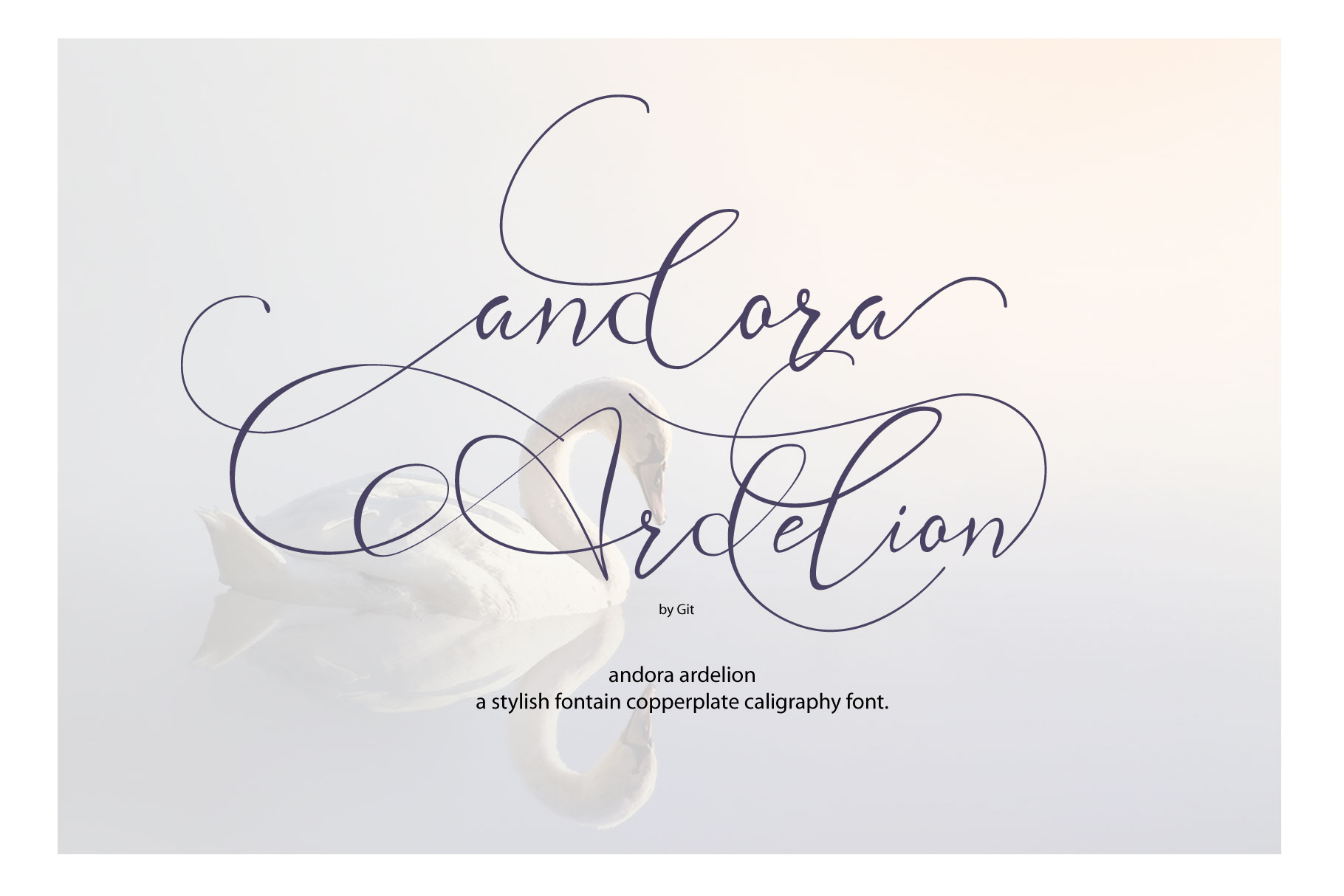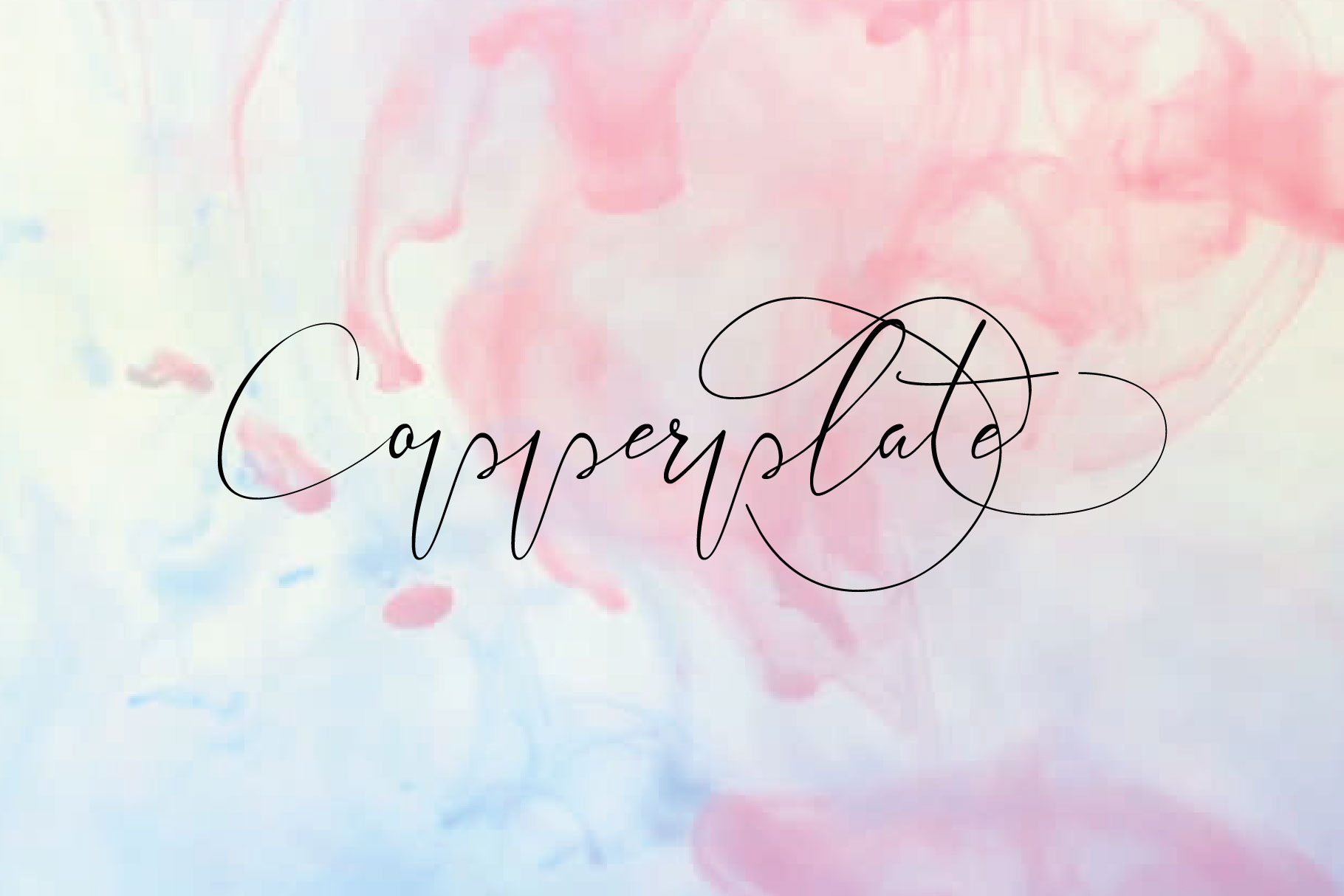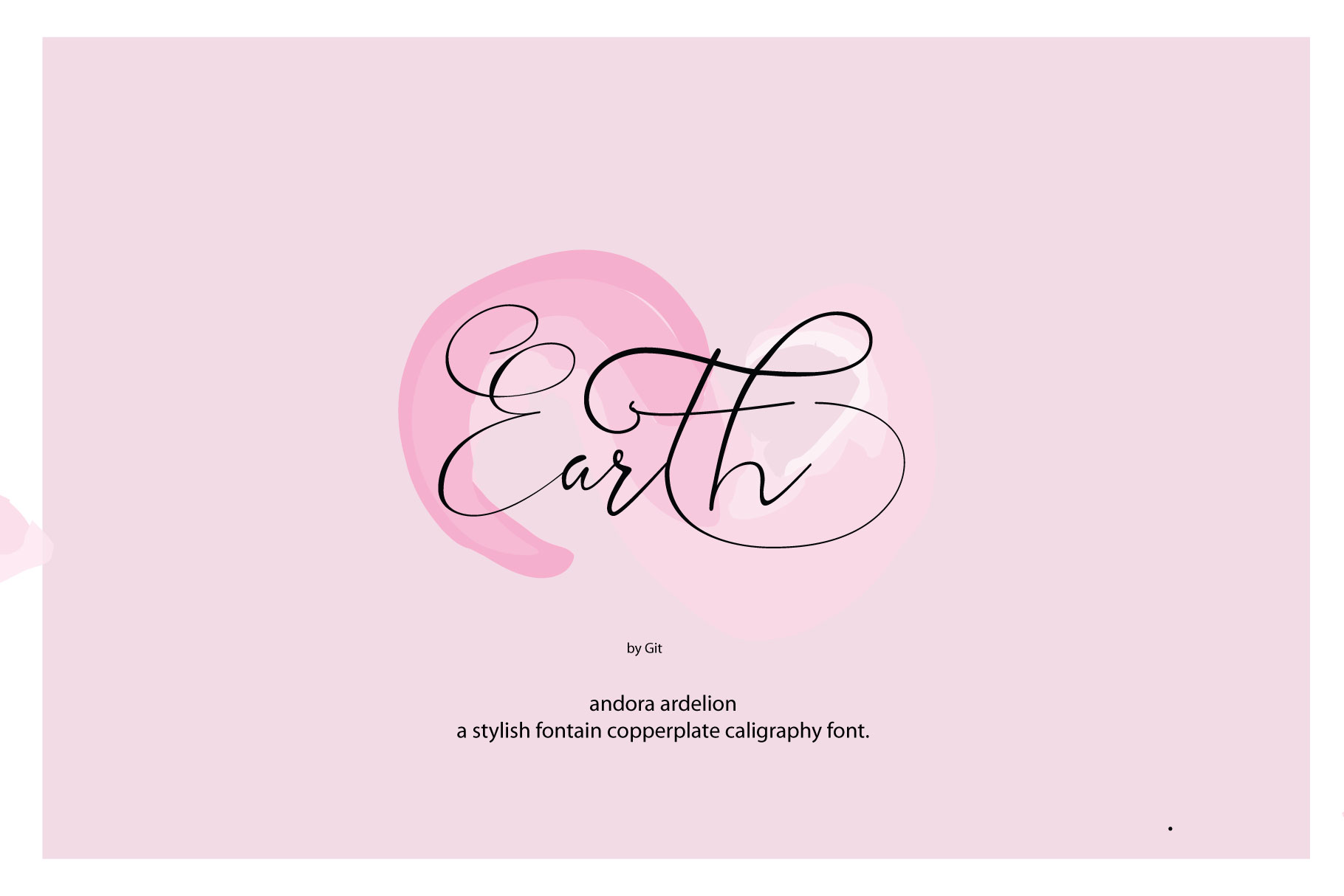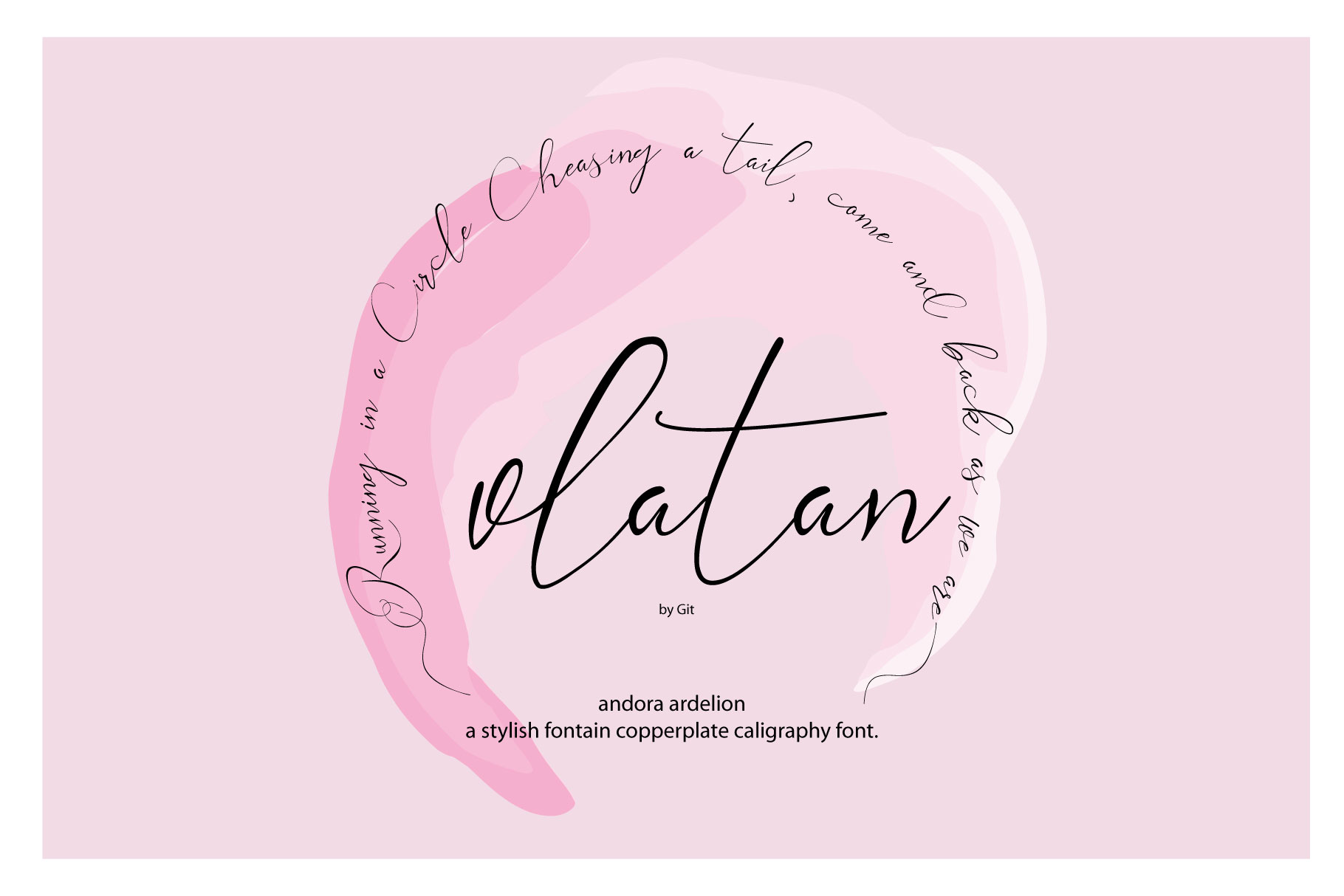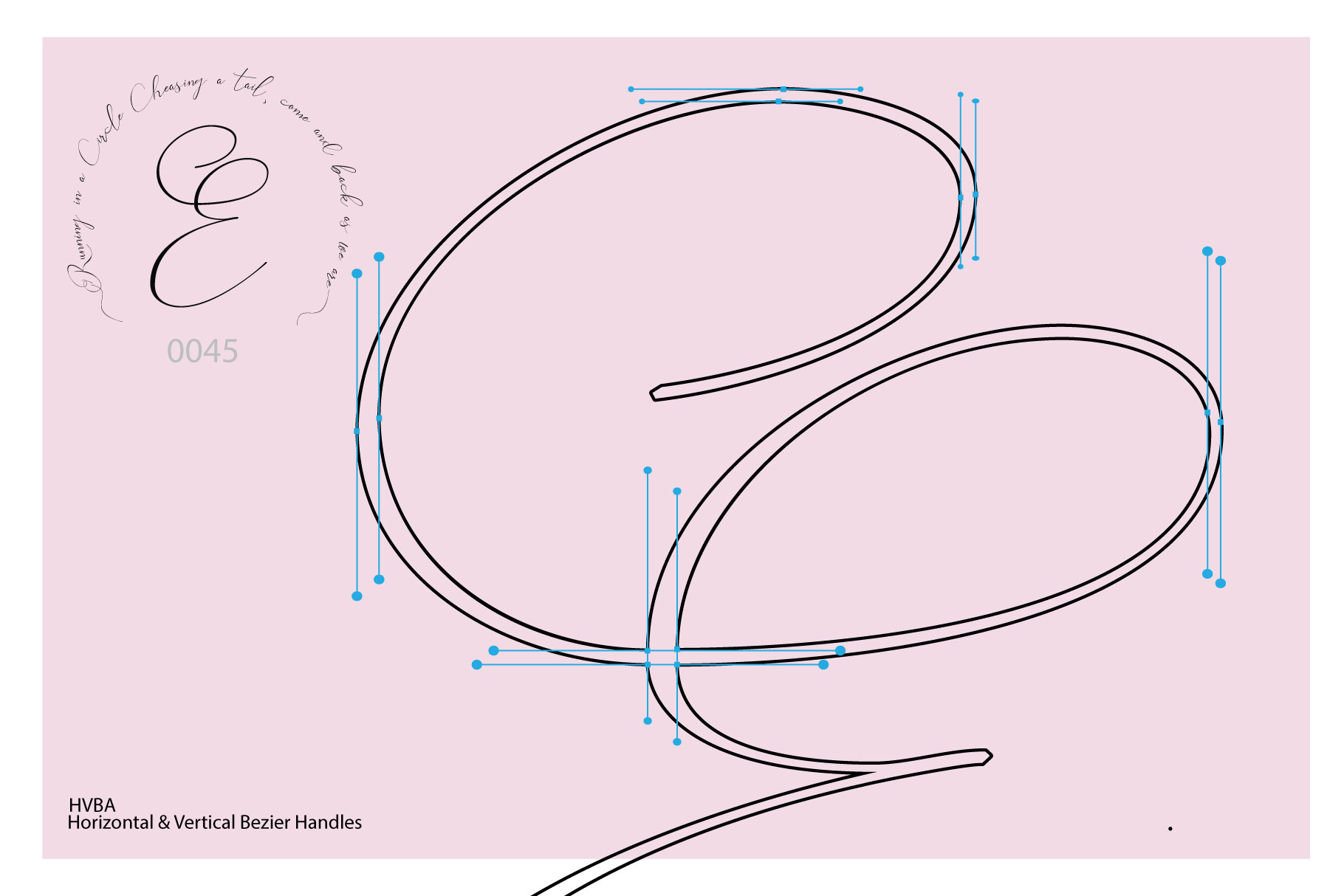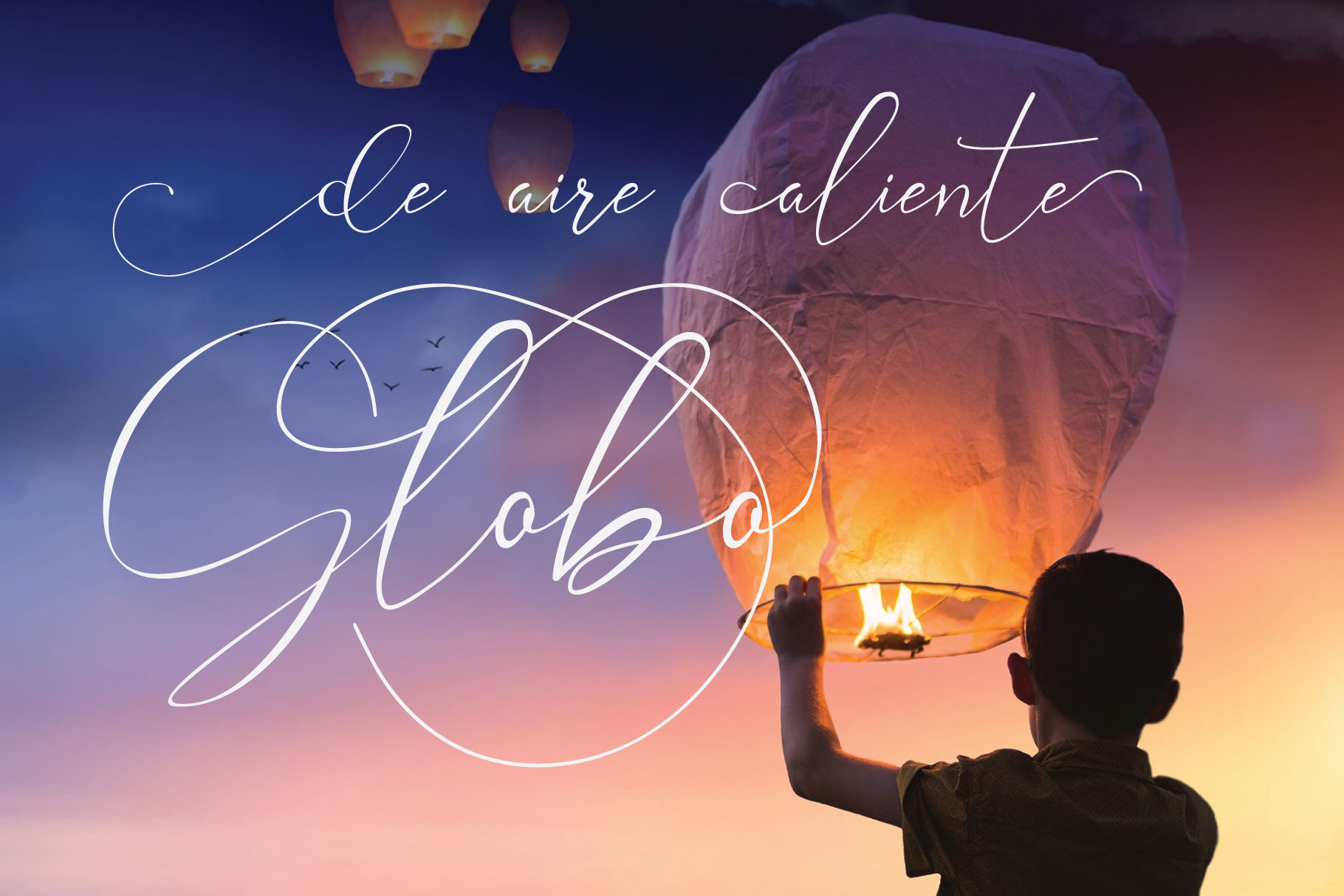
Andora Ardelion Font
About Andora Ardelion Font
Andora Ardelion is a stylish and elegant new copperplate calligraphy font, suitable for designs that need both a touch of elegance and modernity. This font has a lot of swashes that can help anchor your projects in ornamental glamour.